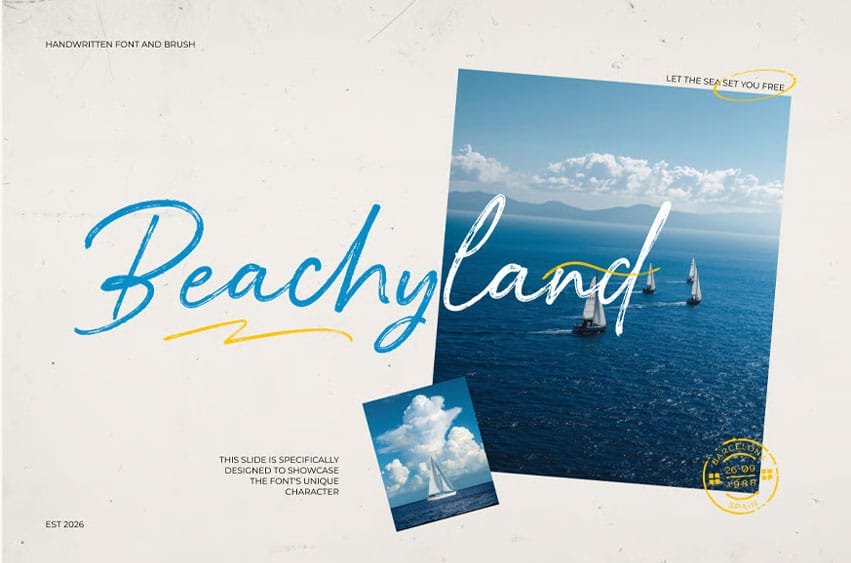
Beachyland Font is a relaxed handwritten brush script typeface inspired by coastal adventures, summer escapes, and carefree creative expression. Featuring natural strokes, flowing letterforms, and an authentic hand-drawn texture, this typeface brings a personal and energetic touch to modern designs.
- Creates a relaxed and adventurous visual personality
- Perfect for travel, lifestyle, and summer-themed branding
- Natural brush strokes add an authentic handmade feel
- Works beautifully for posters, packaging, and social media
Ideal for travel graphics, surf-inspired designs, beach merchandise, lifestyle branding, postcards, invitations, and promotional artwork, this typeface captures the carefree spirit of coastal living with an expressive handwritten aesthetic.